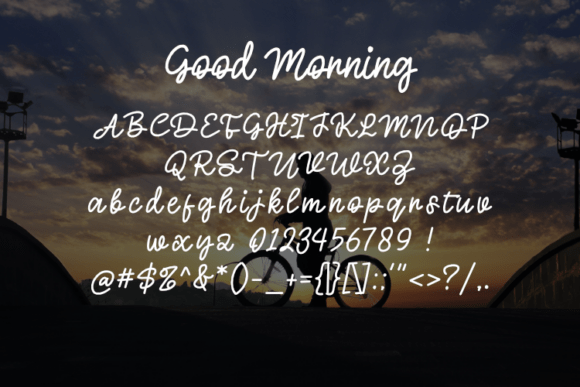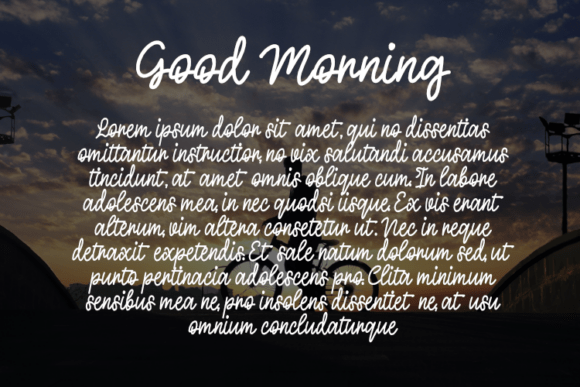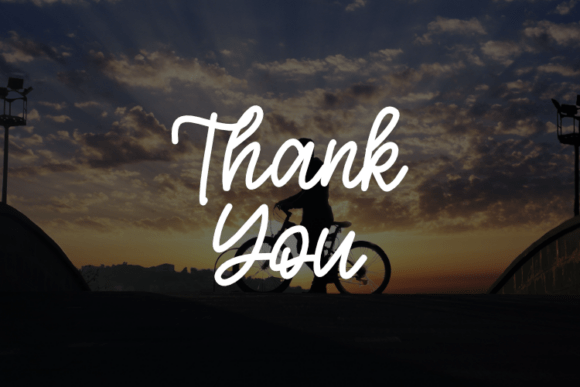
Introducing Good Morning Font: Elevate Your Designs with a Fresh Greeting
Are you tired of using the same old fonts for your designs? Look no further! We’re excited to introduce “Good Morning”, a beautifully crafted font that adds a touch of warmth and personality to your creations. This versatile font is perfect for clothing, t-shirts, and a multitude of other product designs, and its seamless integration with various design forms and software platforms makes it a must-have for designers and crafters.
Good Morning font is designed to bring a fresh vibe to your design experience. Its unique and artfully crafted design makes it stand out from the crowd, and its aesthetic appeal is sure to captivate your audience. Whether you’re creating designs for clothing, accessories, or home decor, this font is sure to elevate your creations and make them more engaging.
Key Features of Good Morning Font
- Versatility: Good Morning font is designed to work seamlessly with all design forms and software platforms, making it easy to integrate into your workflow.
- Aesthetically pleasing: The font is meticulously designed to be visually appealing, with a unique and artful design that adds a touch of personality to your creations.
Bring Your Creations to Life with Good Morning Font
Good Morning font is more than just a font – it’s a way to bring your creations to life. With its delightful and fresh design, it’s sure to greet every viewer with a smile. Whether you’re creating designs for personal use or for clients, this font is sure to make your creations stand out.
Use Cases for Good Morning Font
Good Morning font is perfect for a variety of design projects, including:
- Clothing and apparel: Add a touch of personality to t-shirts, hoodies, and other clothing items with Good Morning font.
- Home decor: Use Good Morning font to create unique and personalized home decor items, such as wall art and signs.
- Stationery and paper products: Add a touch of warmth and personality to stationery, greeting cards, and other paper products.
- Digital designs: Use Good Morning font to create engaging digital designs, such as social media graphics and blog posts.
Tips for Using Good Morning Font
Here are a few tips for getting the most out of Good Morning font:
- Experiment with different colors: Good Morning font looks great in a variety of colors, so don’t be afraid to experiment and find the perfect hue for your design.
- Pair with other fonts: Good Morning font pairs well with other fonts, so try combining it with other fonts to create a unique and visually appealing design.
- Use it for headlines and titles: Good Morning font is perfect for headlines and titles, so use it to add a touch of personality to your design.
In conclusion, Good Morning font is a versatile and aesthetically pleasing font that’s perfect for designers and crafters. Its unique design and seamless integration with various design forms and software platforms make it a must-have for anyone looking to elevate their designs. Whether you’re creating designs for clothing, home decor, or digital products, Good Morning font is sure to bring a fresh vibe to your design experience.
Get Ready to Greet Your Audience with a Delightful ‘Good Morning’